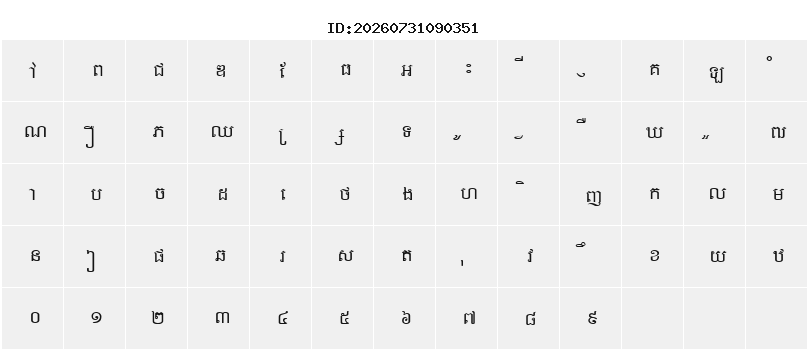
• Font Name: Limon S5
• Font ID: Alts:LmnTTFantBig
• Full Font Name: Limon S5
• Version: 1.0 Sat Apr 09 11:23:33 1994
• PostScript Name: LmnTTFantBig
• Character Count: 154
About Limon S5.ttf
Limon S5.ttf is a modern, elegant sans-serif font designed for ultimate readability and visual harmony. Perfect for branding, headlines, web design, and print materials.